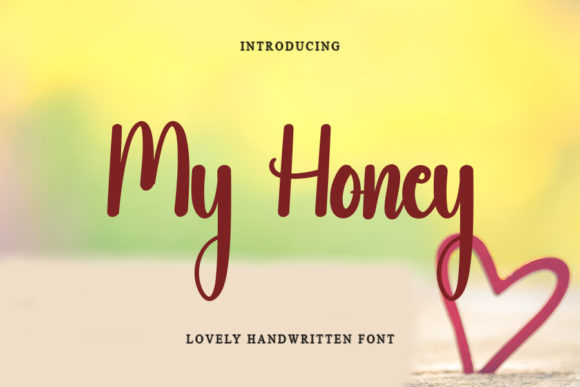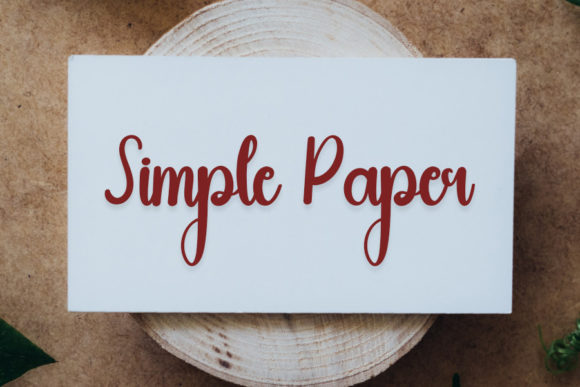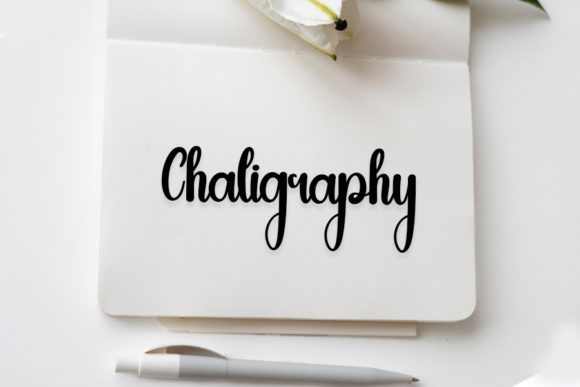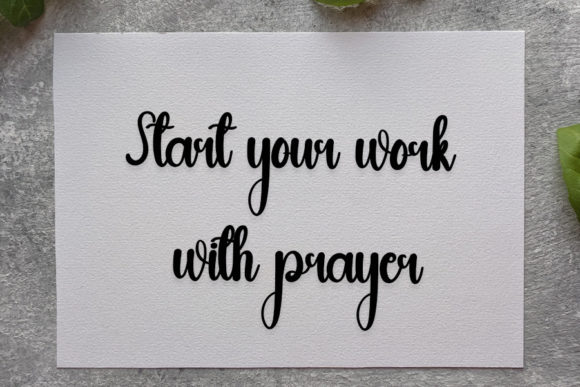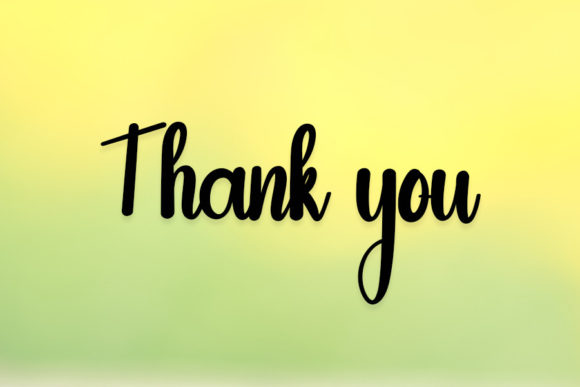
My Honey Font
My Honey Font: A Sweet Script for Romantic Designs
The My Honey font is a tender handwritten typeface that exudes sweetness and charm. Its delightful character makes it perfect for designs that need a romantic and personal touch.
Elegance in Every Stroke
My Honey’s soft curves and graceful strokes give each letter a refined look. This dainty appearance adds sophistication to any text, making it ideal for wedding invitations and love notes.
Warmth and Personal Connection
The font’s handwritten quality brings authenticity to designs. It’s perfect for heartfelt messages and thoughtful cards, adding a personal touch to your projects.
Versatility of My Honey Font
My Honey shines in various design contexts. From wedding stationery to social media graphics, it adds a romantic flourish to any project. Its blend of elegance and playfulness makes it a valuable design asset.
Creating Emotional Resonance
More than just a typeface, My Honey invites designers to infuse their work with sentiment. Its delicate nature creates a warm atmosphere, making projects resonate with authenticity and charm.
My Honey in Creative Projects
This font transforms ordinary text into extraordinary expressions of love. It’s a cherished tool for designers looking to add a touch of romance to their work.
Perfect for Special Occasions
My Honey is particularly well-suited for special event designs. Its elegant script enhances invitations, place cards, and other wedding-related materials.
Whether you’re crafting a personal note or designing a brand identity, My Honey offers the perfect balance of style and emotion. Its versatility across different mediums ensures that your message not only looks beautiful but also communicates effectively.